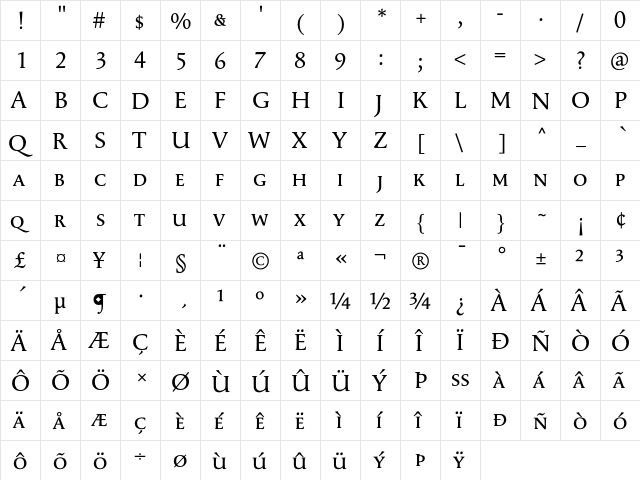
Apolline RegularSC
Design Context for Apolline Typeface
Apolline is a composed and adaptable typeface that performs quietly and consistently across a wide range of design contexts.
Pro Tip: Pair Apolline with a font of contrasting weight or personality to build a more expressive typographic hierarchy.